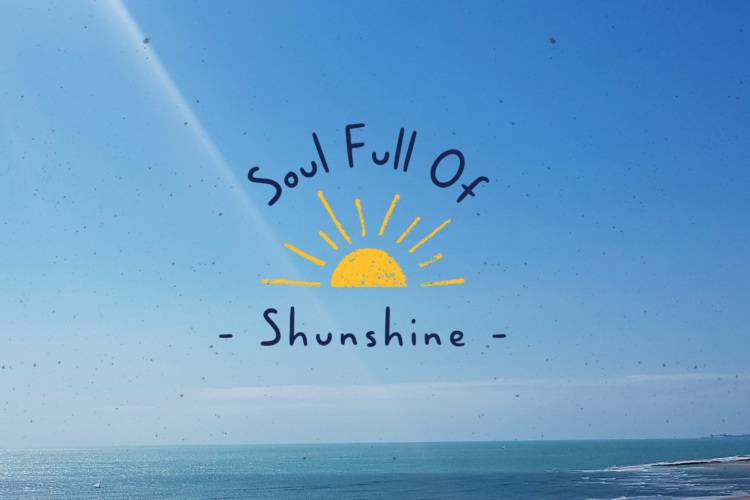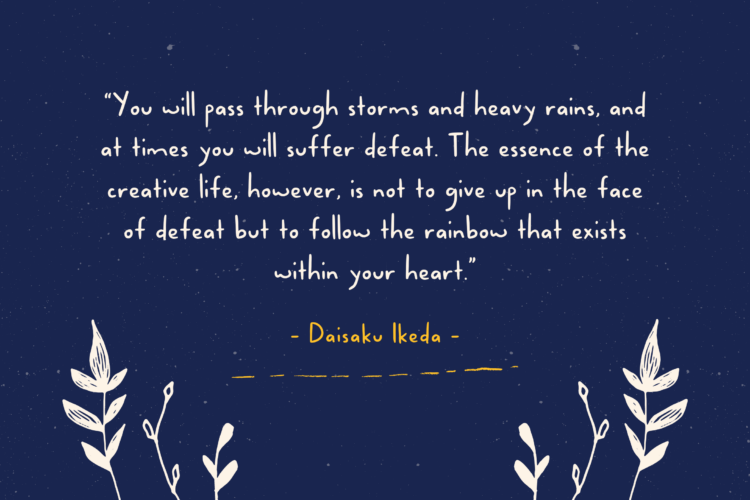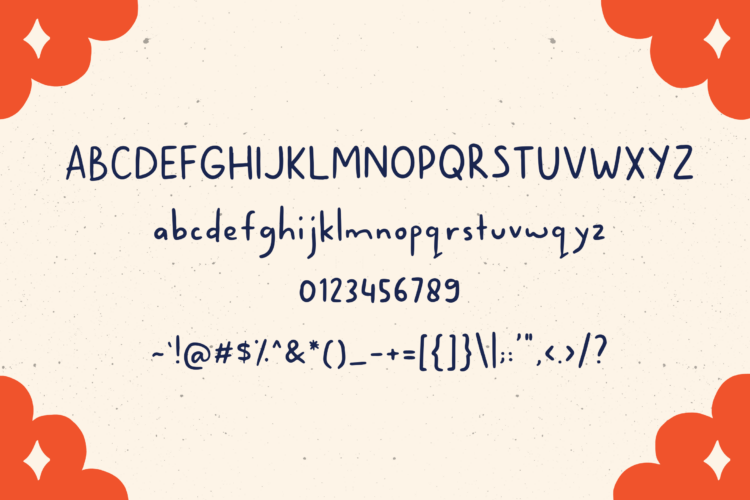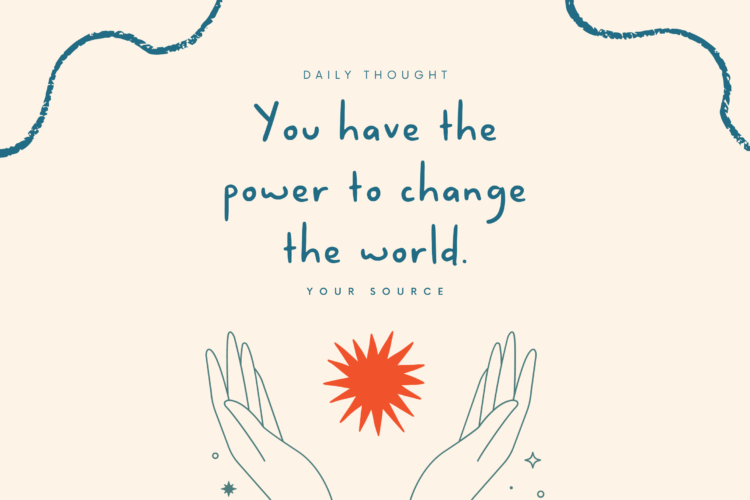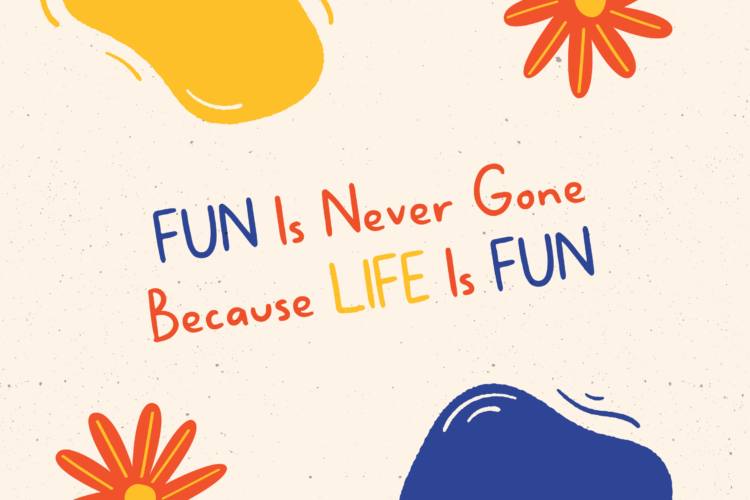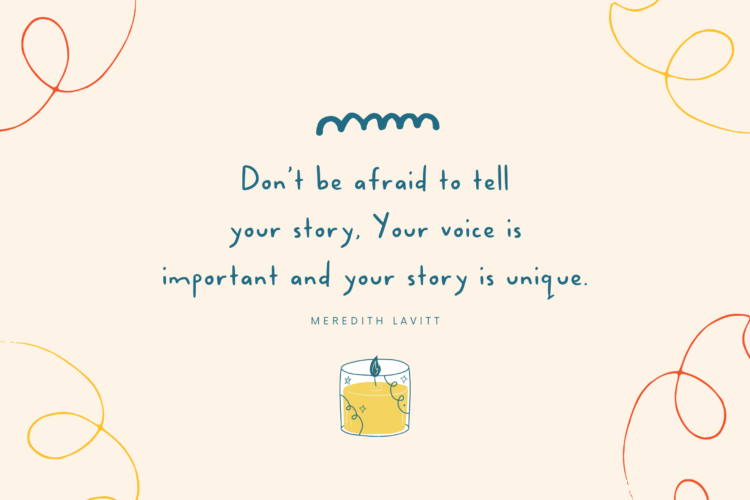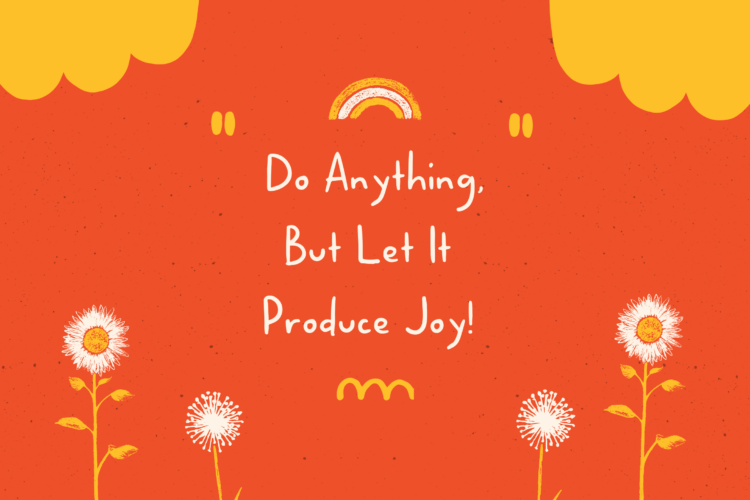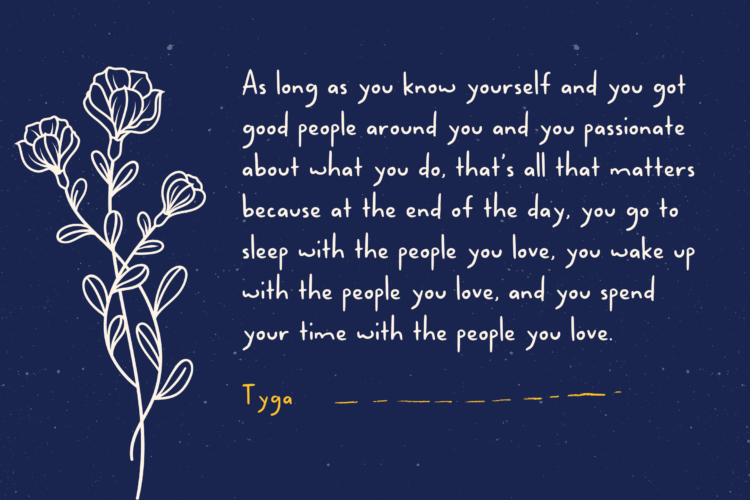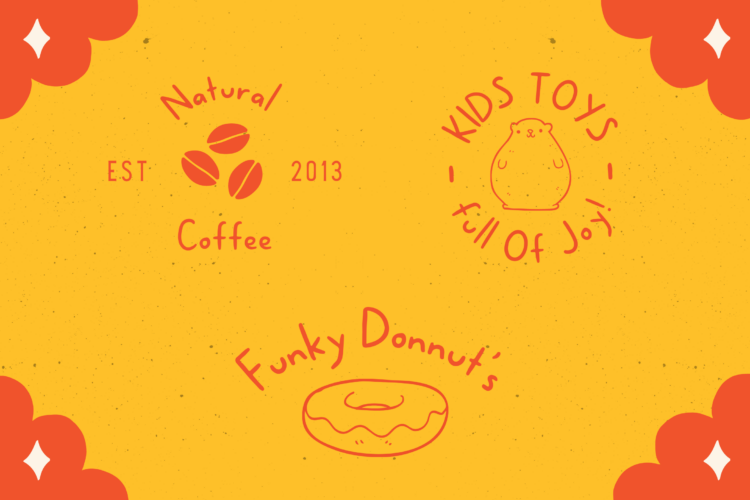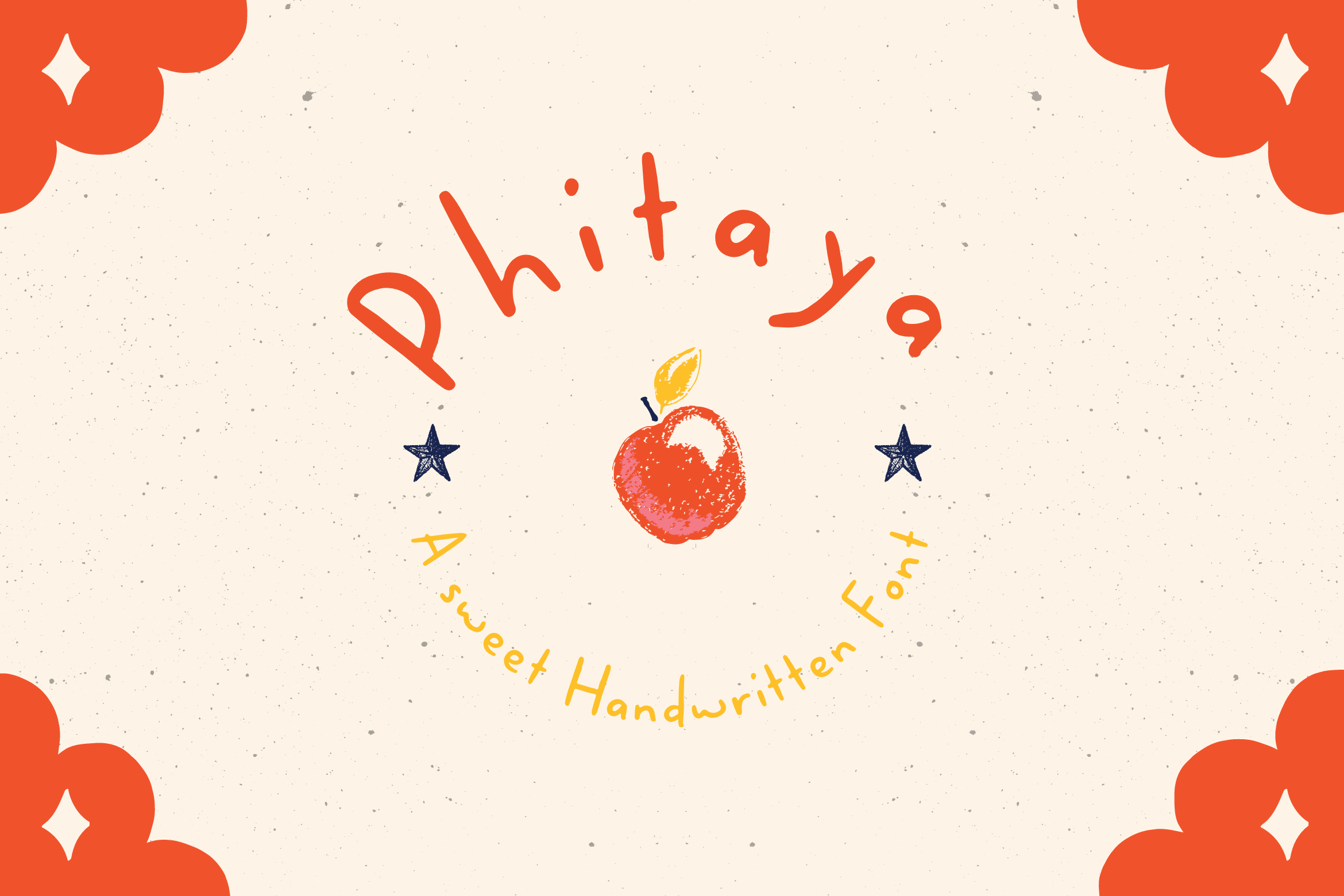
Let’s having fun with the sweet and fun handwritten font Phitaya that will brighten all your handy works. It is a suitable choice for children-themed work, book, logo, quote, greeting cards, quaint branding and many more. It is also perfect for a stylish text overlay to any background image or semi-formal text.
This font package consists of a full set of the alphabet from A to Z, in uppercase and lowercase letters, numbering and punctuation that available in OTF format only. For international use, Phitaya, a sweet handwritten font is supported for multilingual language so it will be a perfect match for fun and cheerful occasion.
Phitaya – A Sweet Handwritten Font